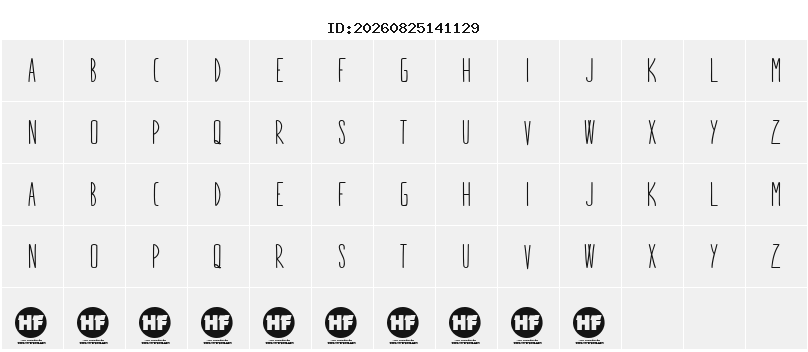
• Font Name: STARGAZER demo
• Full Font Name: STARGAZER demo Bold
• Designer: Guilhem Greco
• Manufacturer: Guilhem Greco / Hypefonts
About STARGAZER demo.ttf
STARGAZER demo.ttf is a modern, elegant sans-serif font designed for ultimate readability and visual harmony. Perfect for branding, headlines, web design, and print materials.